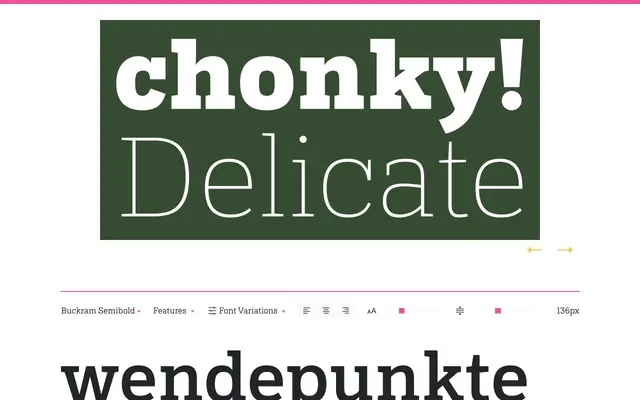
Buckram
Bijou Type · 2024
A sturdy, functional slab serif in eight weights with broad Latin coverage across approximately 390 languages, released in 2024.
Buckram takes its name from the stiff, durable cloth used in bookbinding, and the analogy holds: the design prioritises clarity and legibility without sacrificing warmth. Eight weights from ExtraLight to Black are available individually or as a variable font, and the extensive Latin character set covers around 390 languages. Suited to editorial and promotional work where reliability matters as much as personality.
Buckram is explicitly described as a slab serif, with sturdy rectangular serifs and functional letterforms balanced by editorial warmth, placing it squarely in the slab serif category.